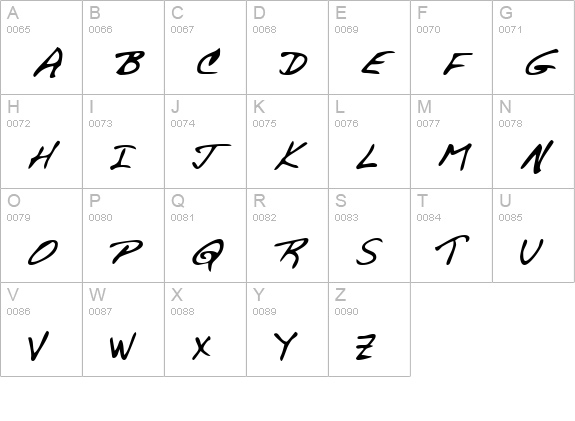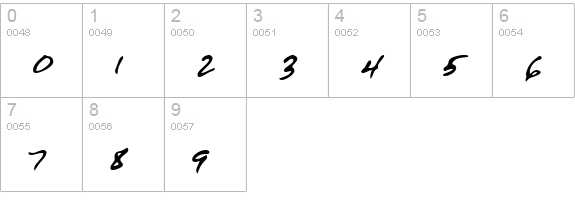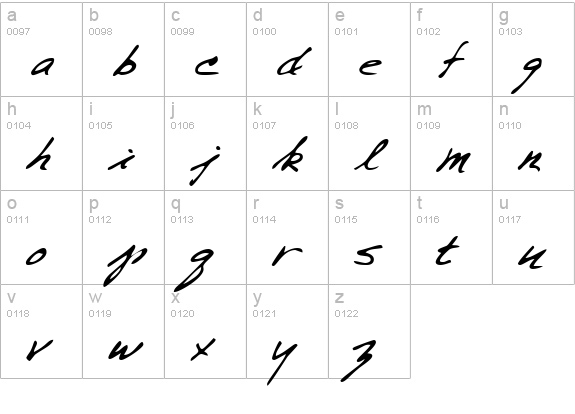
ScottsHand Regular Font Details
ScottsHand Regular is the standard, neutral variant in the ScottsHand typeface family \xE2\x80\x94 well suited to general body text, paragraphs, and standard typographic work.
Introducing ScottsHand Regular, a versatile and captivating font that effortlessly combines elegance with a touch of playfulness. Designed to inspire creativity and add a unique flair to your projects, this font is sure to catch the eye of any viewer. With its smooth curves and gentle strokes, ScottsHand Regular exudes a sense of warmth and approachability. Whether you're designing a logo, crafting a headline, or creating a captivating poster, this font will bring your ideas to life with its distinct and charming personality. But what sets ScottsHand Regular apart from other fonts is its accessibility. We believe that creativity should have no boundaries, which is why we are thrilled to offer this font for free. Yes, you heard that right - ScottsHand Regular is freely available to download at FontsMarket.com. Now, you can unleash your imagination and create stunning designs without worrying about any additional costs. The possibilities are endless with ScottsHand Regular, as it effortlessly adapts to various design projects, from branding and packaging to web design and advertising. Embrace the beauty of ScottsHand Regular and let its elegant yet playful nature elevate your work to new heights. Download it today at FontsMarket.com and unlock a world of creative possibilities, all at your fingertips. Get ready to captivate your audience with the timeless charm of ScottsHand Regular.